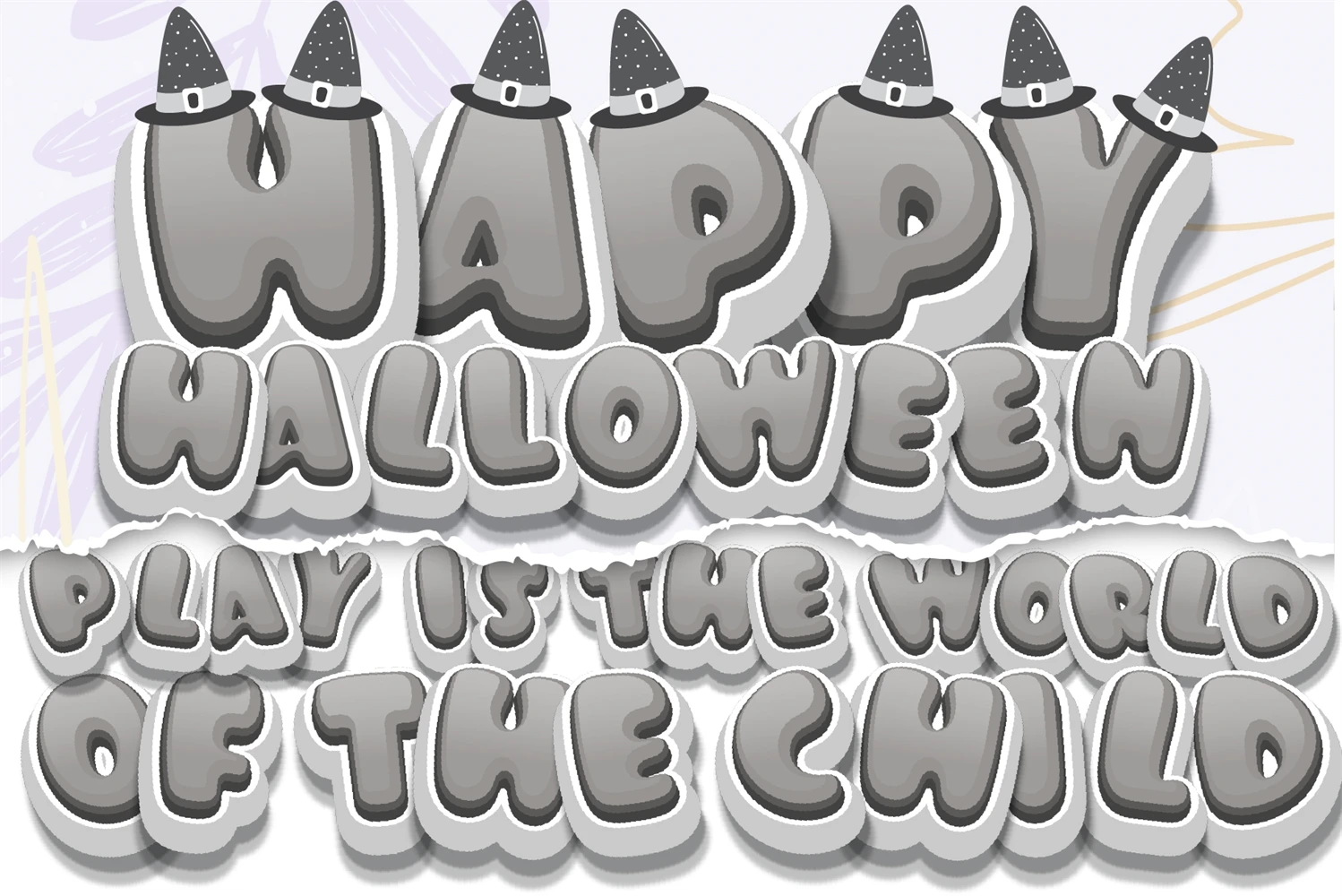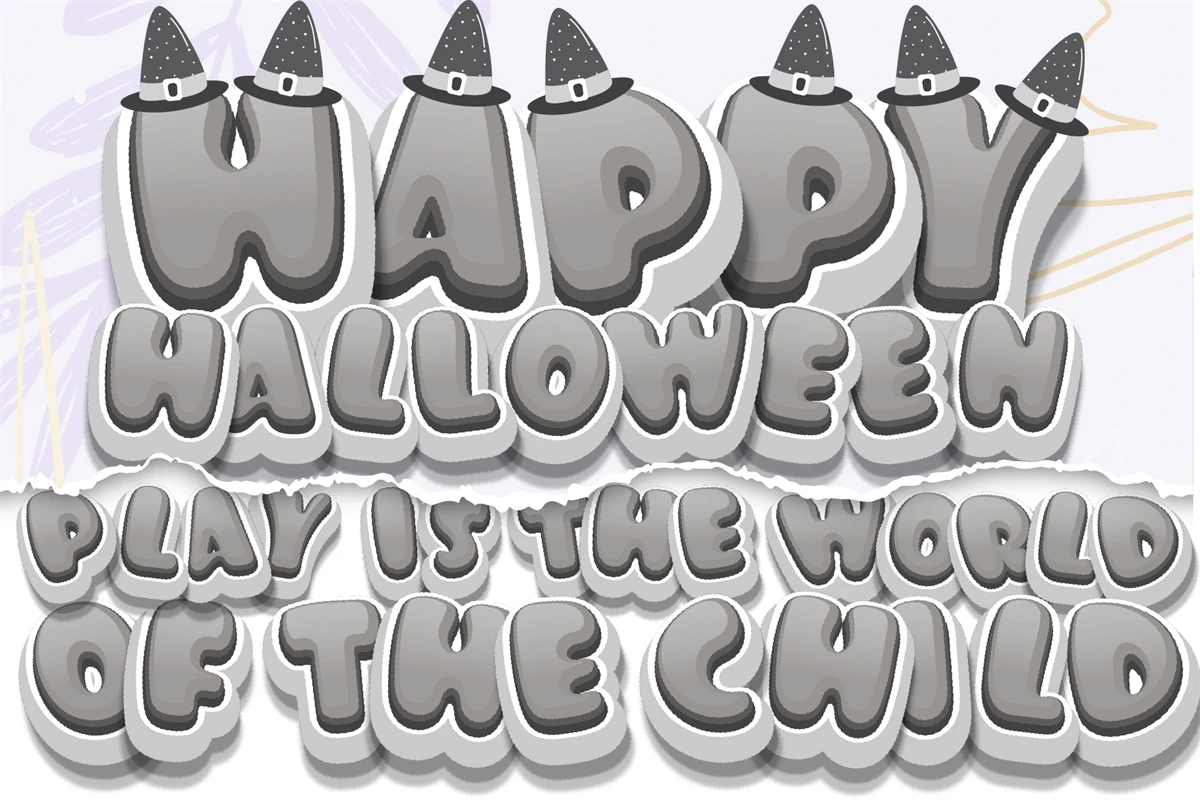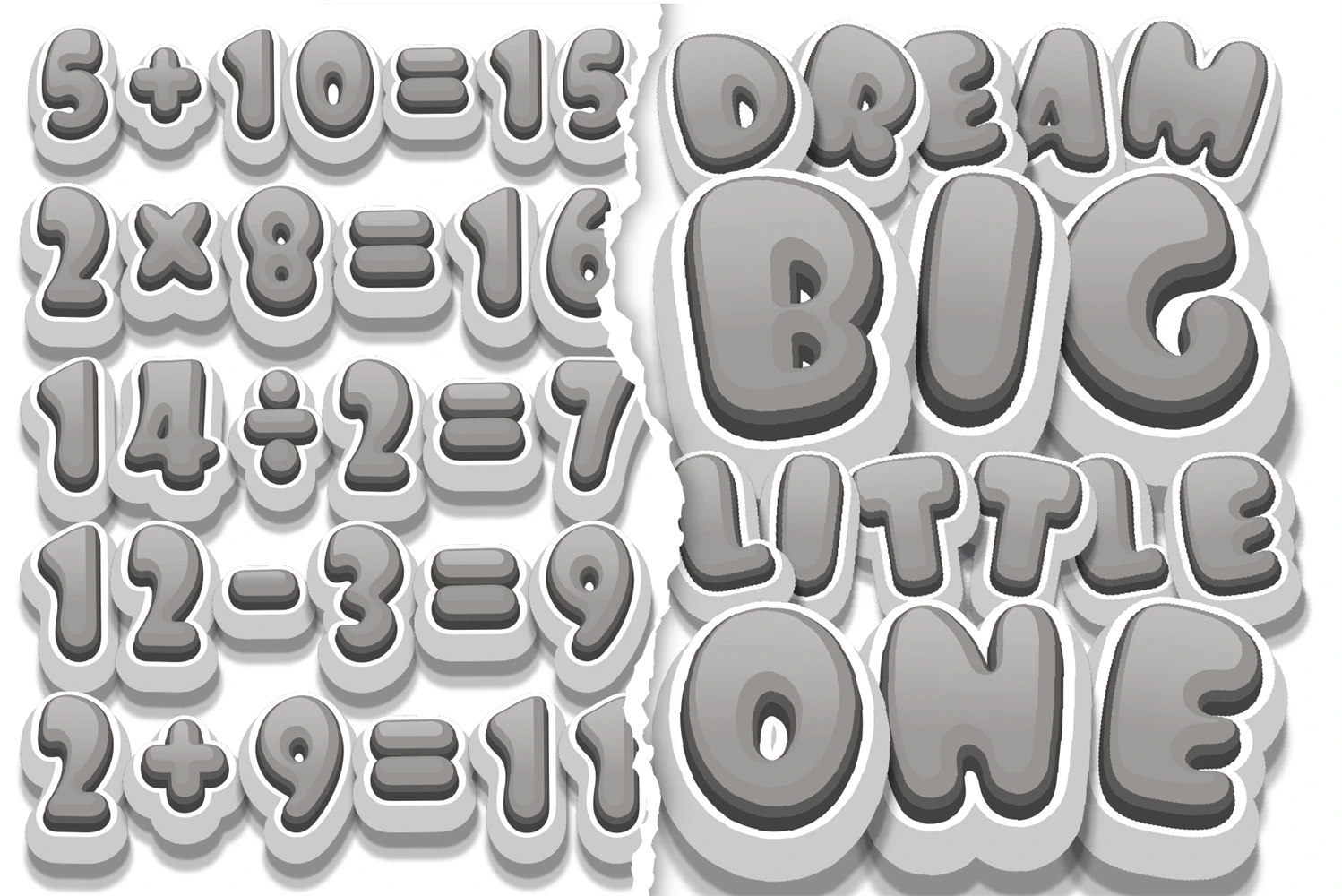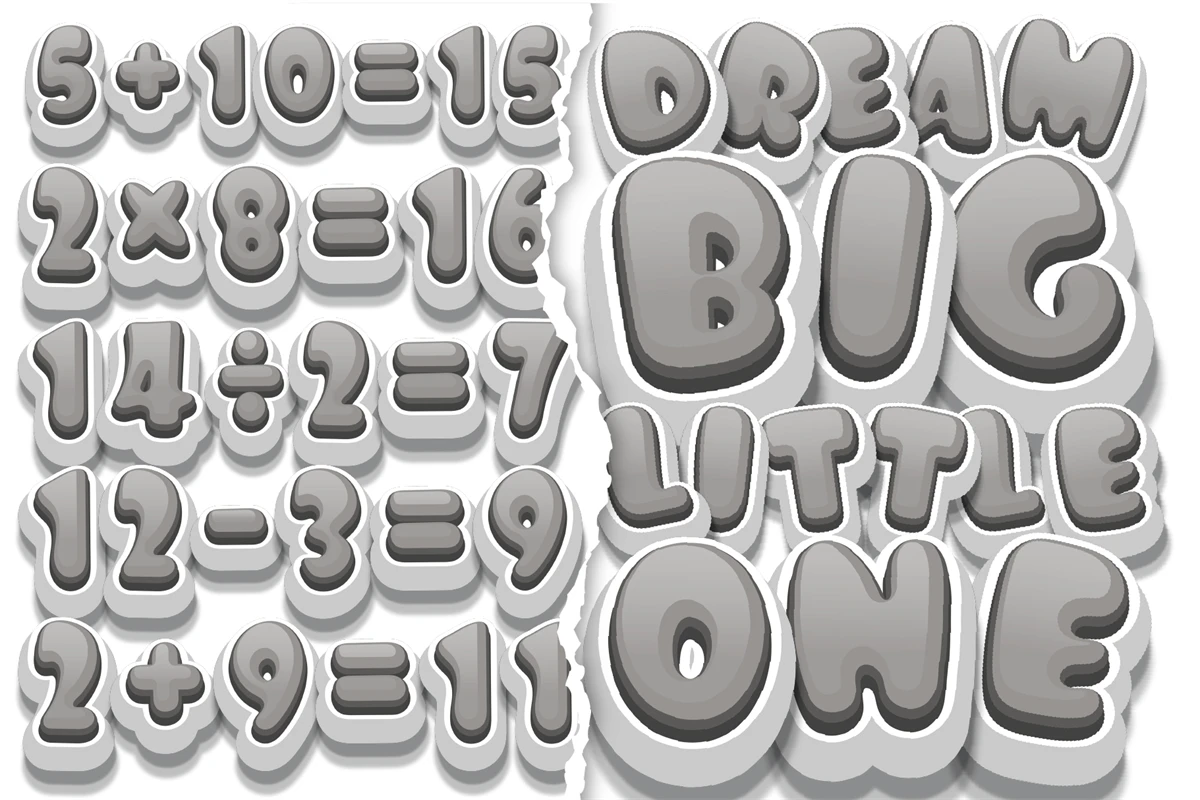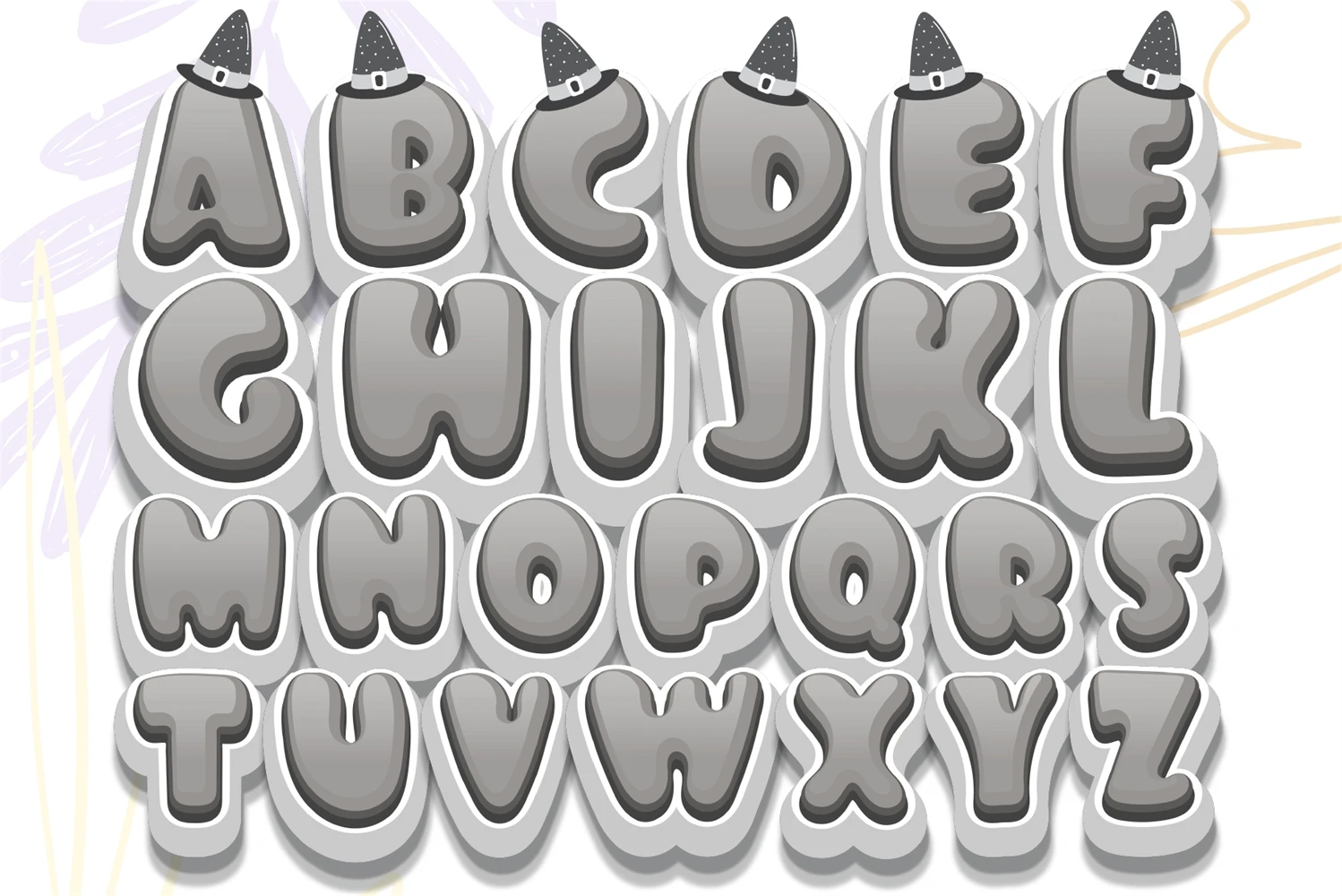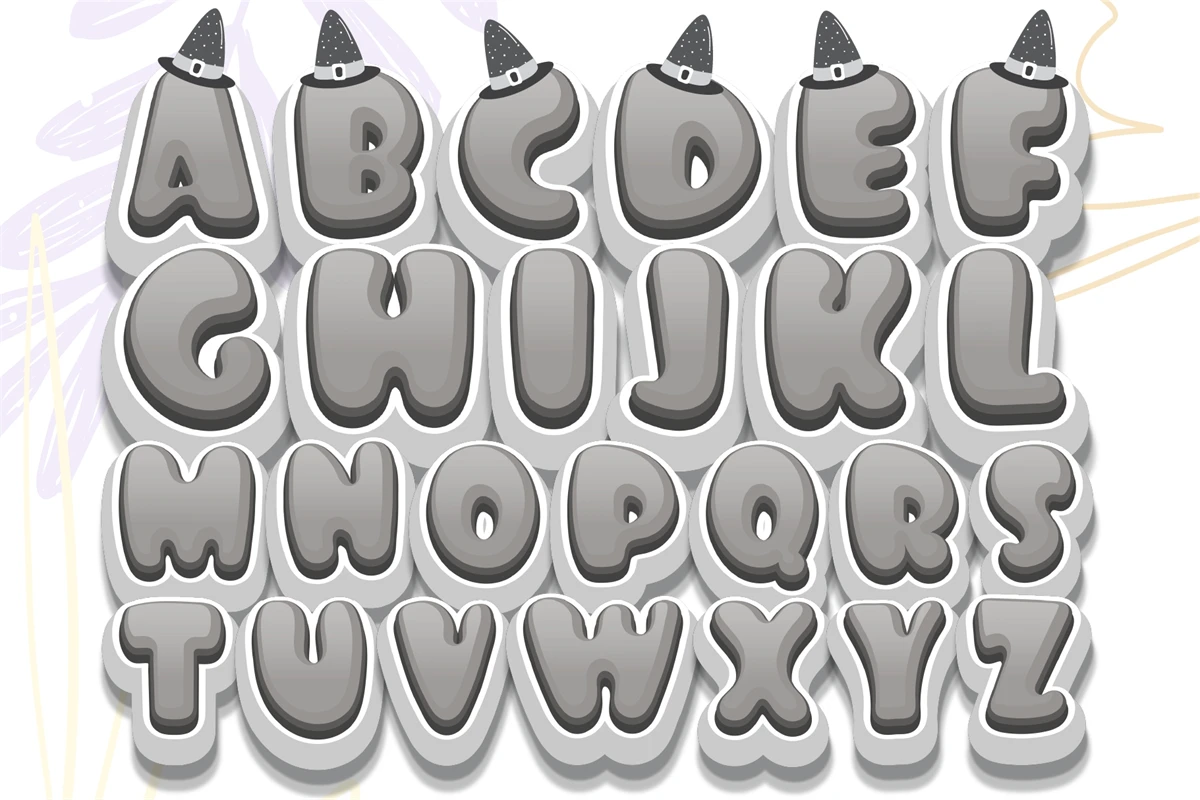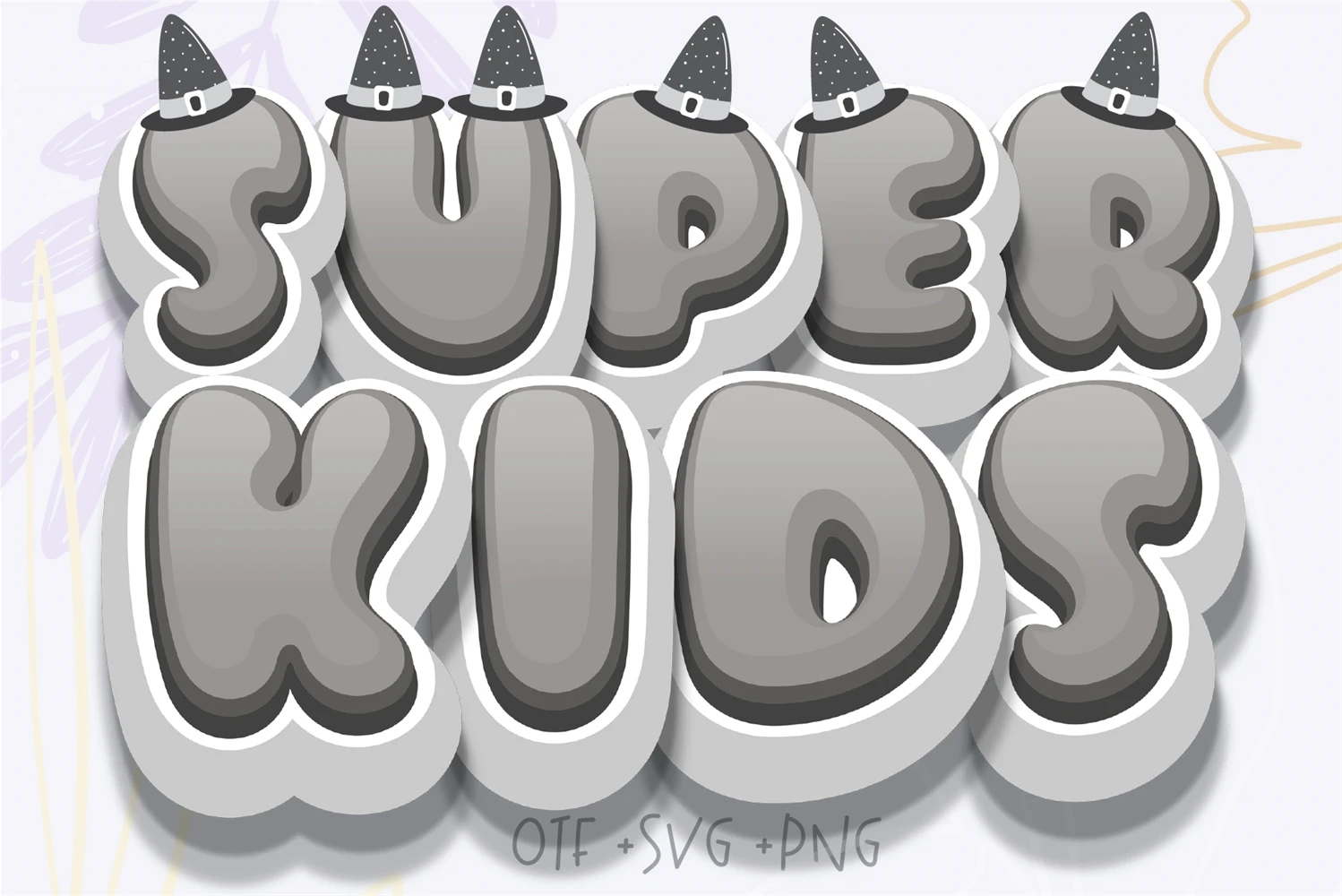
Super Kids - Little Witch Font
Super Kids - Littel Witch Font is a vibrant, playful, and interactive typeface designed to ignite creativity in kids and enliven childrens projects and activities. This dynamic font comes in OpenType-SVG and PNG color formats, making it an exciting addition to any project, from educational materials to childrens books, posters, games, and more. With its lively, handcrafted design, Super Kids sparks the imagination and encourages learning through fun and colorful letterforms. Watch as letters dance and come to life, engaging young minds and adding a touch of magic to their world.